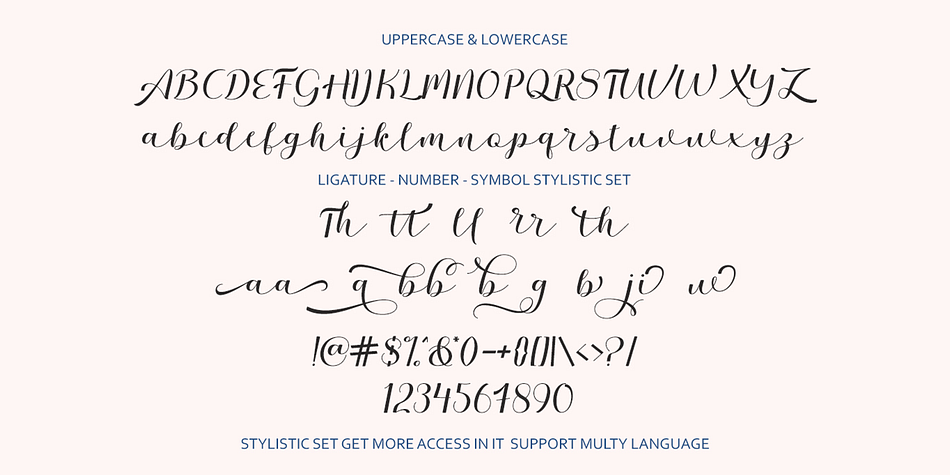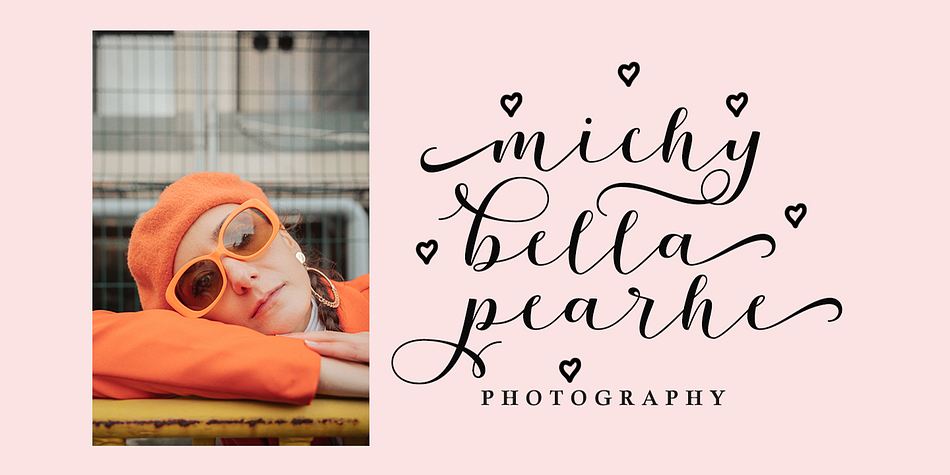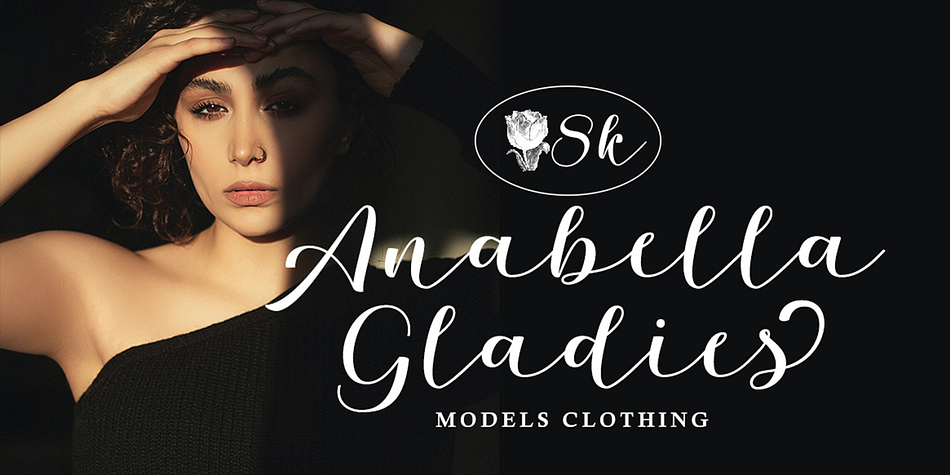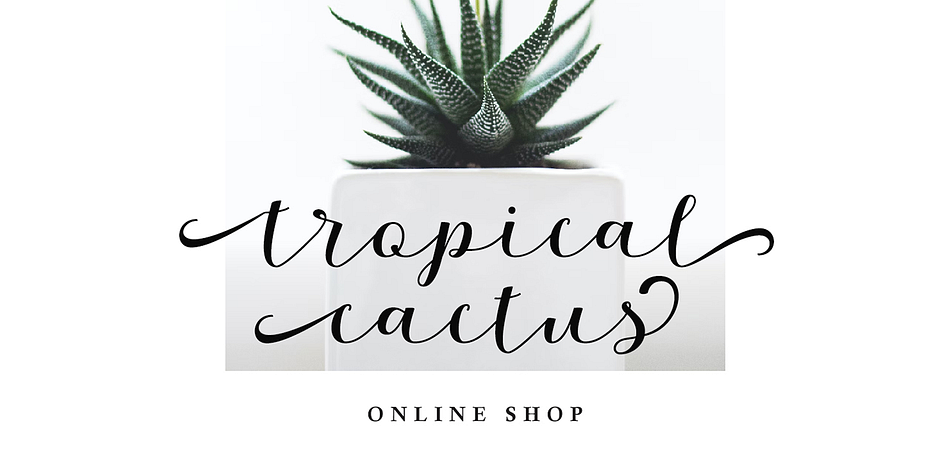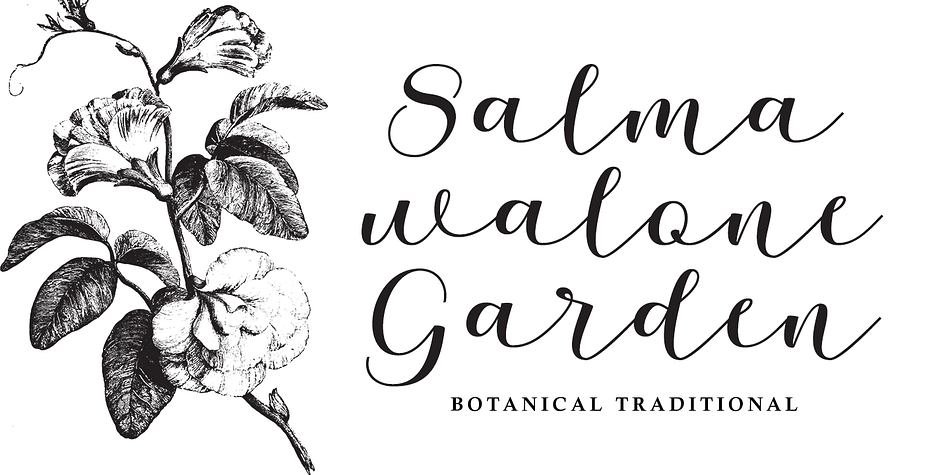
Mulan
Mulan is a brush script font family published by Gatype.
Introducing the new elegant Mulan! For those of you who need a touch of elegance combining classic style with modern calligraphy style for your design, this font is made for you!
Mulan was built with OpenType features and includes initial and ending stylistics, alternative characters for most lowercase letters, numbers, punctuation, alternatives, ligatures and also supports other languages.